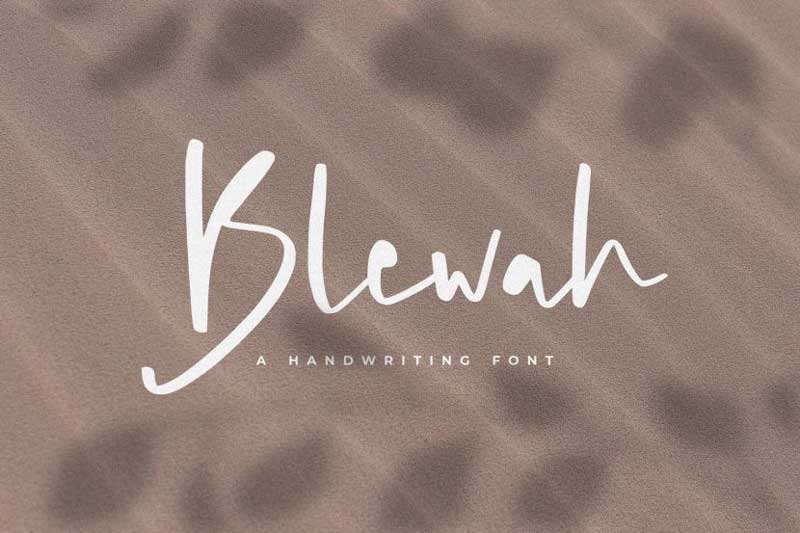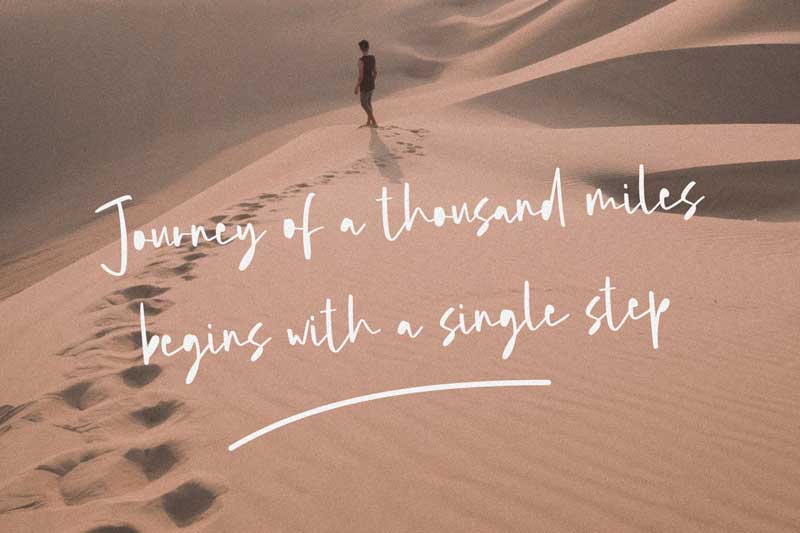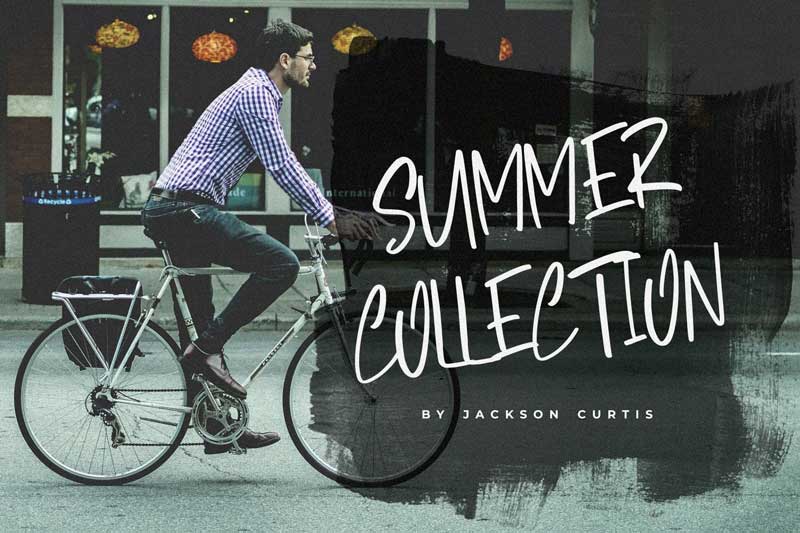
Blewah – A Handwriting Font. It comes with an elegant, cute and feminine style which is perfect to make any design stand out! This font is perfect for branding, wedding invites, magazines, mugs, business cards, quotes, posters, and more.